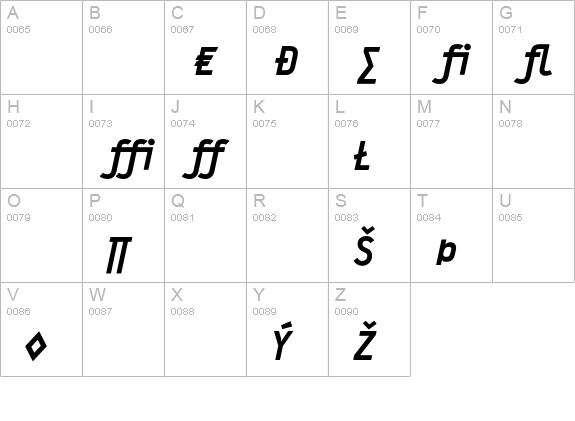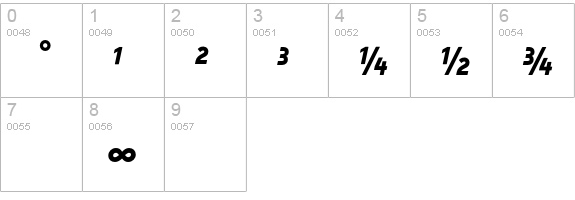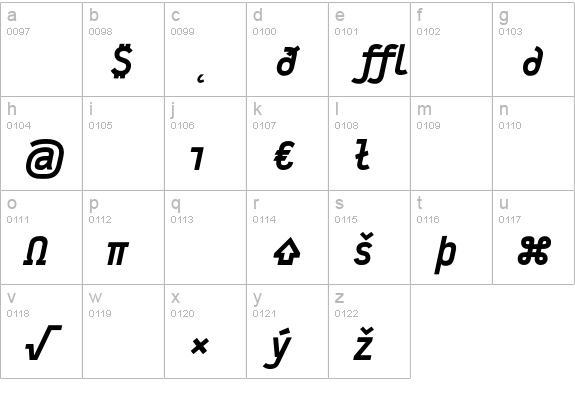
Typestar-BlackItalicExpert Font Details
Typestar-BlackItalicExpert is a visually striking and elegant font that exudes sophistication and style. With its slanted and bold design, this font captures attention and adds a touch of modernity to any project. The sleek, elongated letterforms create a sense of fluidity and grace, making it perfect for high-end branding, editorial design, and fashion-forward layouts. This font is expertly crafted with meticulous attention to detail, resulting in clean lines and sharp edges that enhance legibility even at smaller sizes. The black weight adds a luxurious and commanding presence, making a bold statement on any medium. Typestar-BlackItalicExpert is not only a visually captivating font, but it also offers versatility and flexibility in its usage. Whether it's used for headlines, subheadings, or body text, it effortlessly adapts to various design needs while maintaining its distinct character. What sets Typestar-BlackItalicExpert apart is that it is freely available to download at FontsMarket.com. This means that designers and creatives can access and utilize this remarkable font without any cost. By offering this font for free, the creators aim to encourage creativity and enable anyone to elevate their projects with a touch of sophistication and elegance. So, if you're looking to add a touch of modernity and luxury to your designs, Typestar-BlackItalicExpert is the perfect choice. Download it today from FontsMarket.com and embark on a journey of creating remarkable and visually stunning designs that stand out from the crowd.